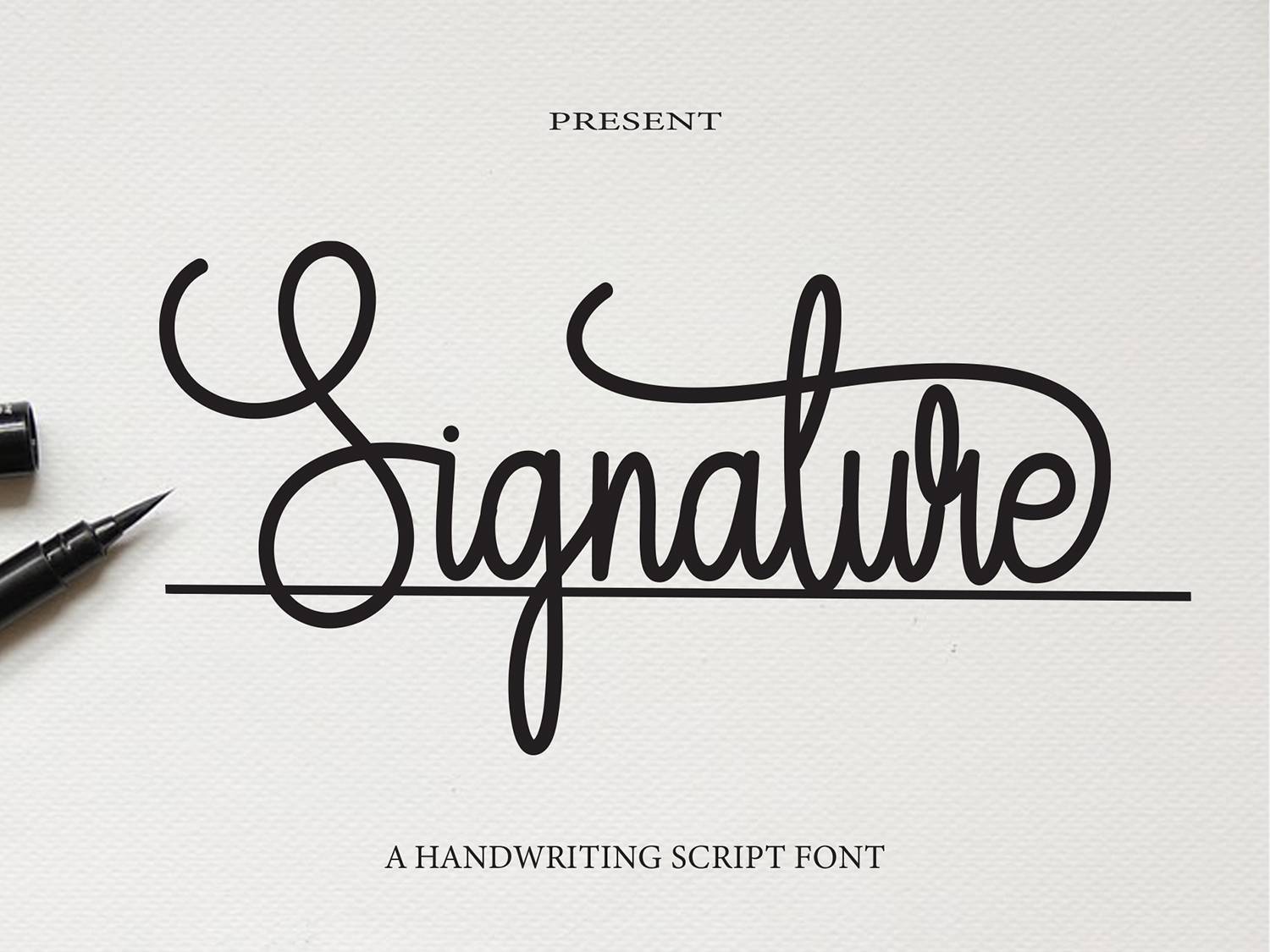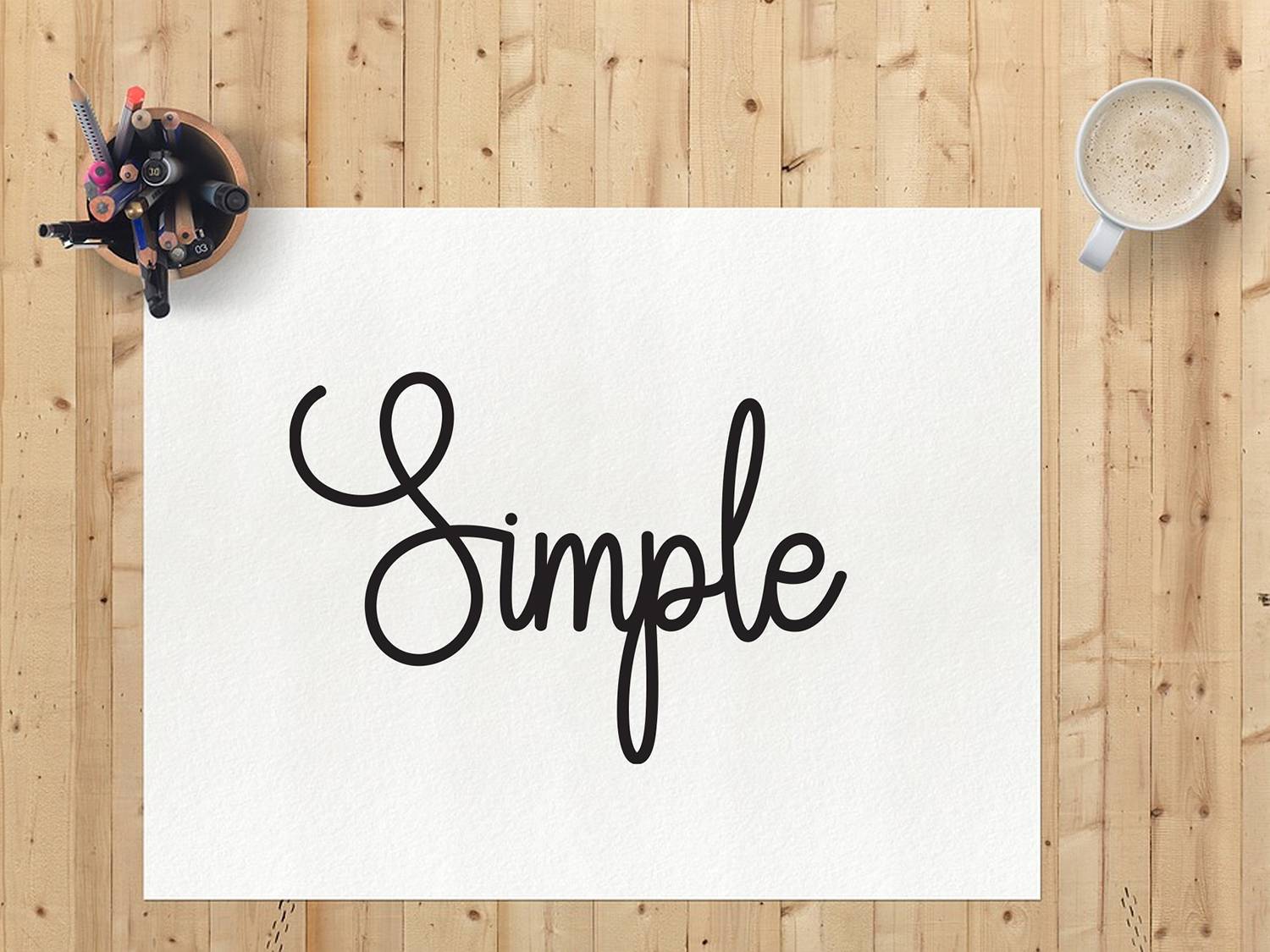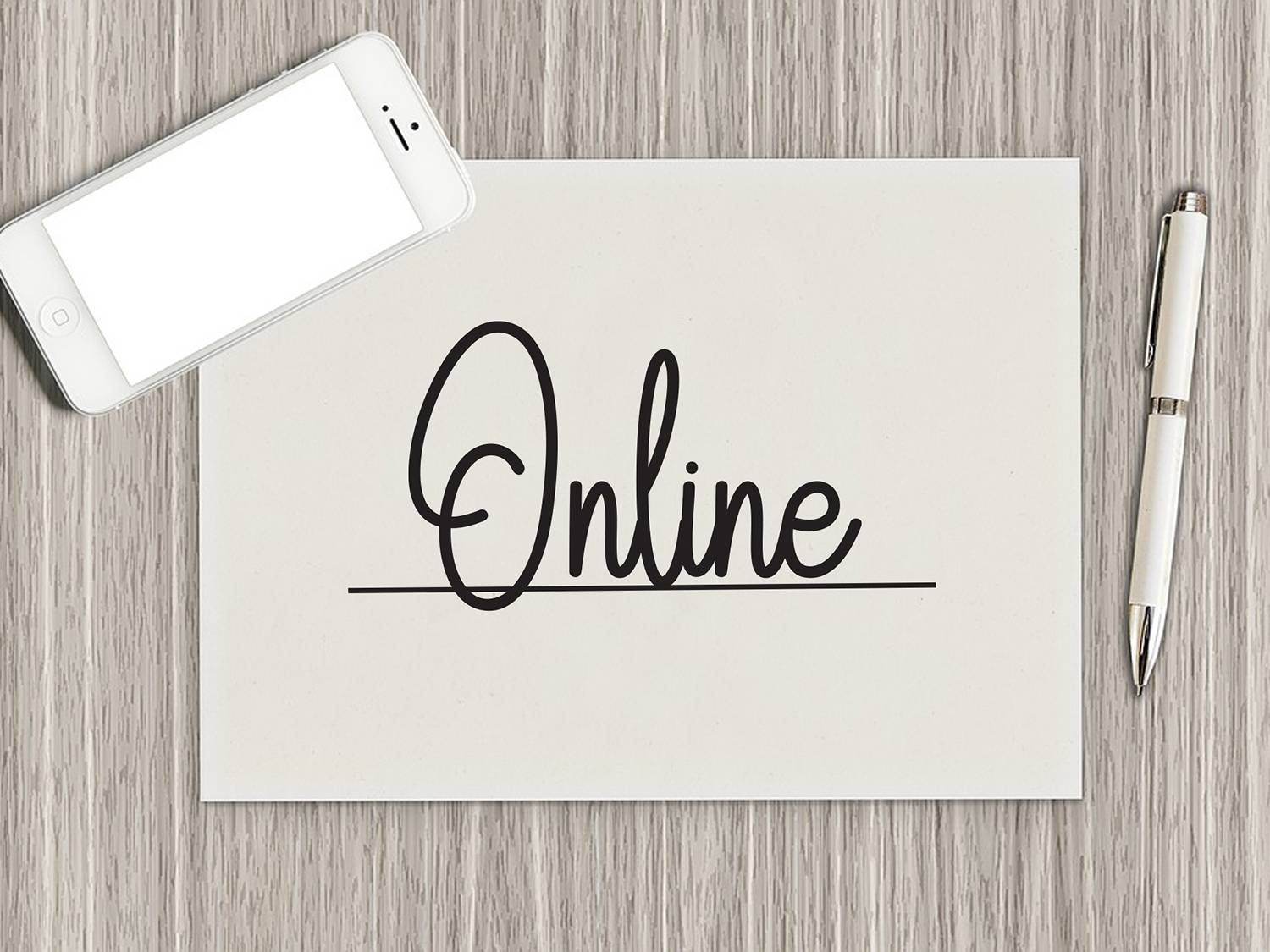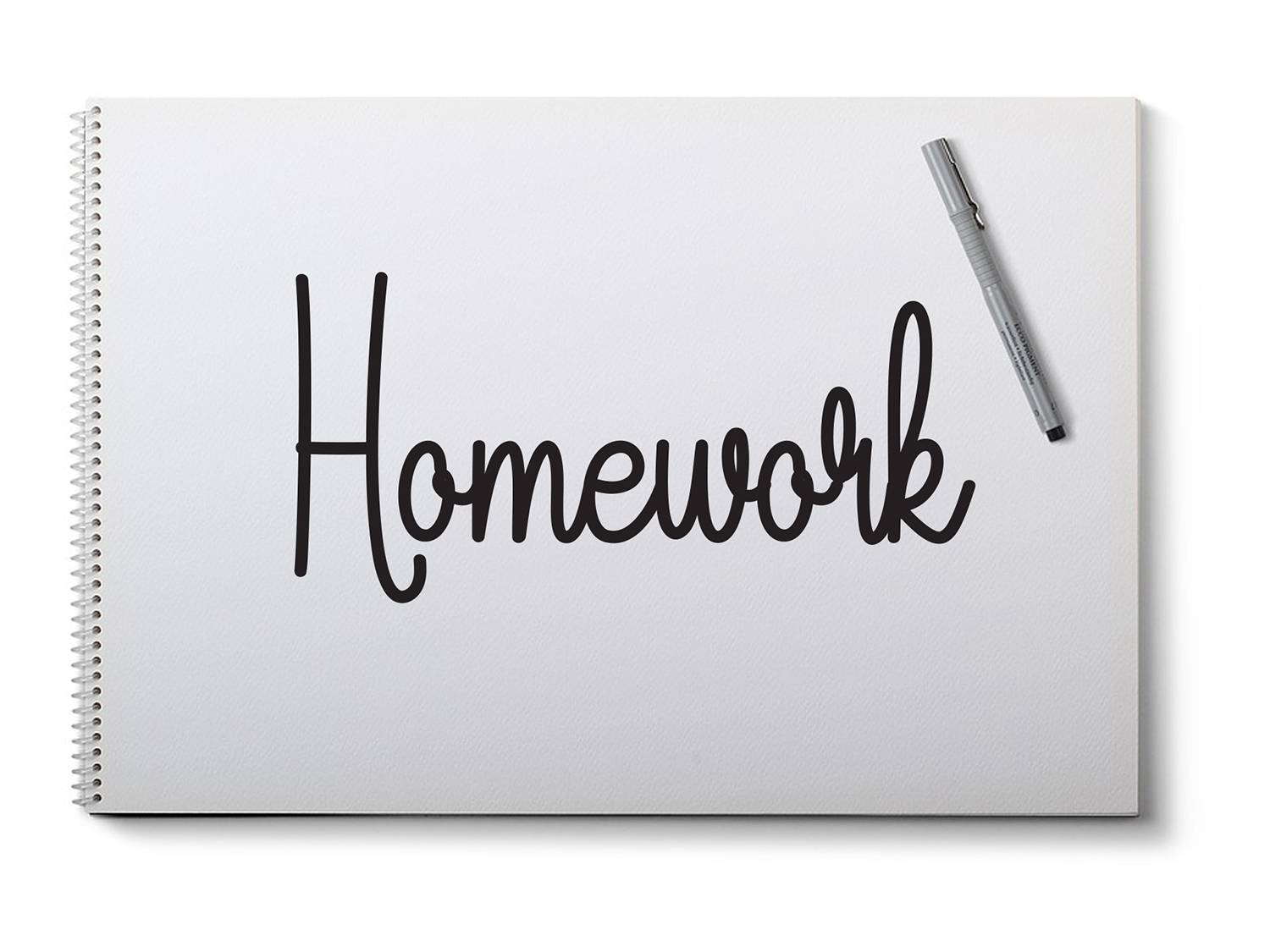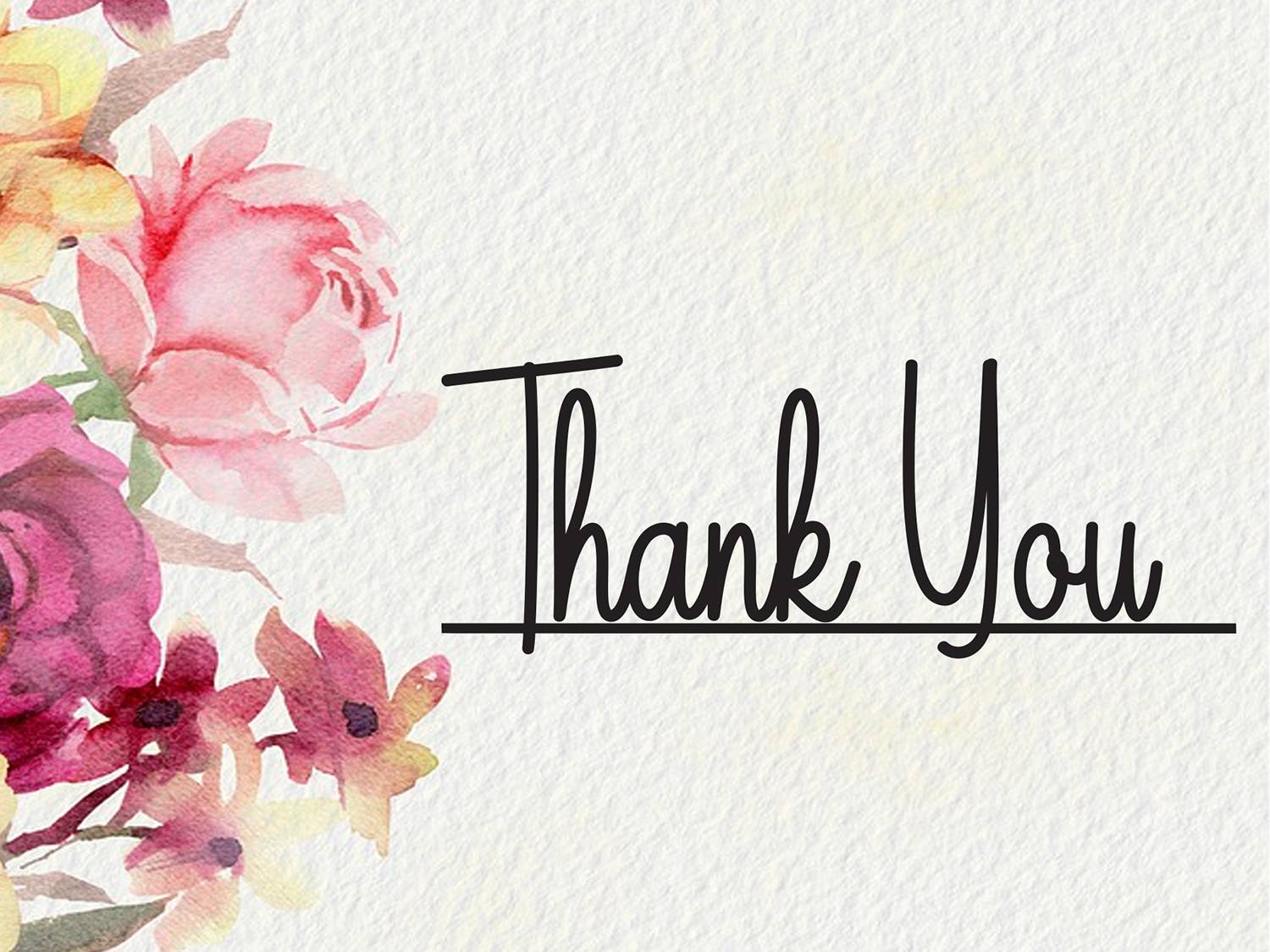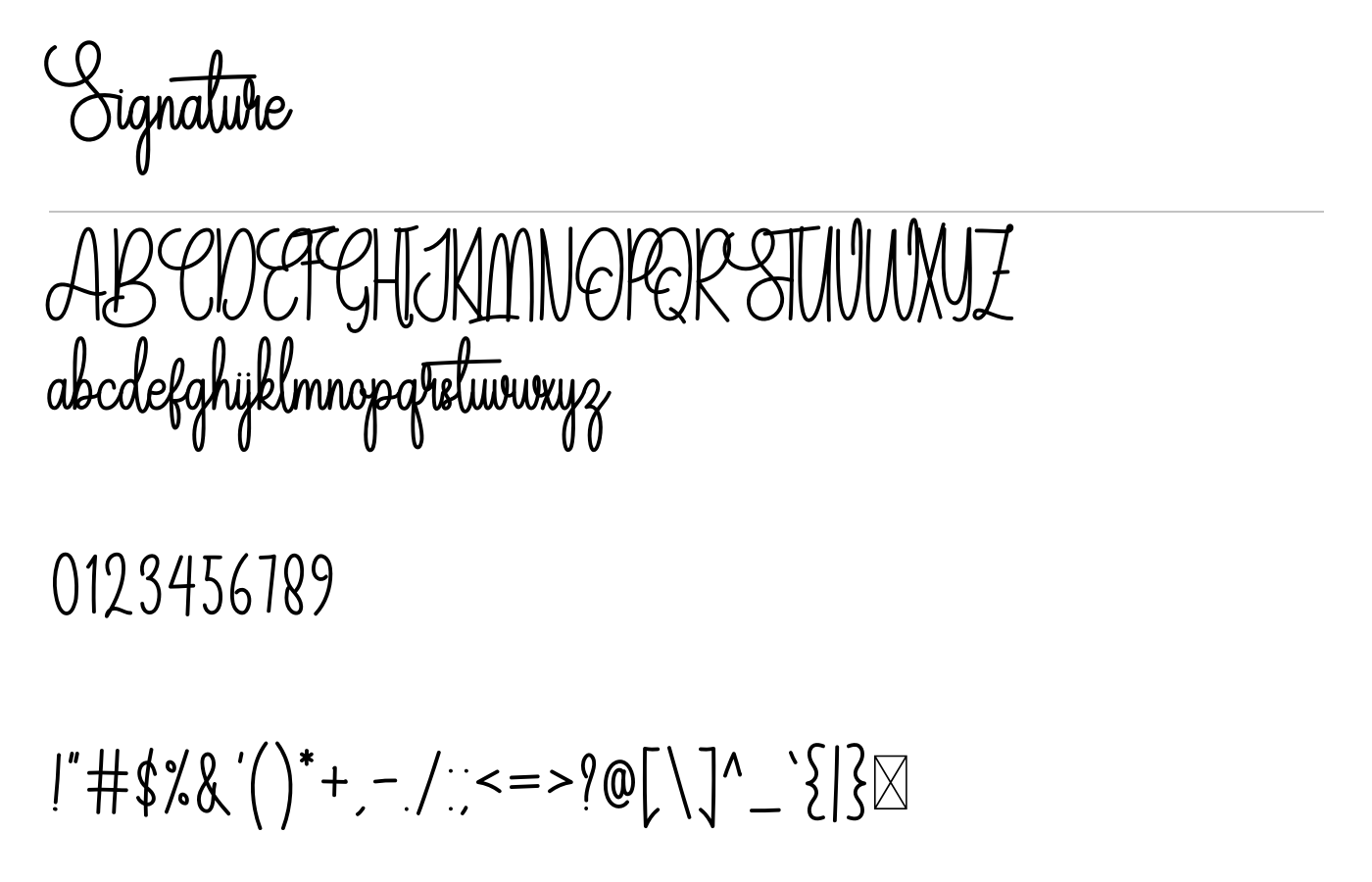
Signature Font is a playful, hand-drawn script style with tall, narrow letterforms and smooth, casual strokes that resemble natural handwriting. Its light weight and whimsical curves give it a friendly, approachable feel, making it ideal for creative projects, personal branding, and informal designs that want to convey a warm, personal touch.
Signature Font
About Signature Font